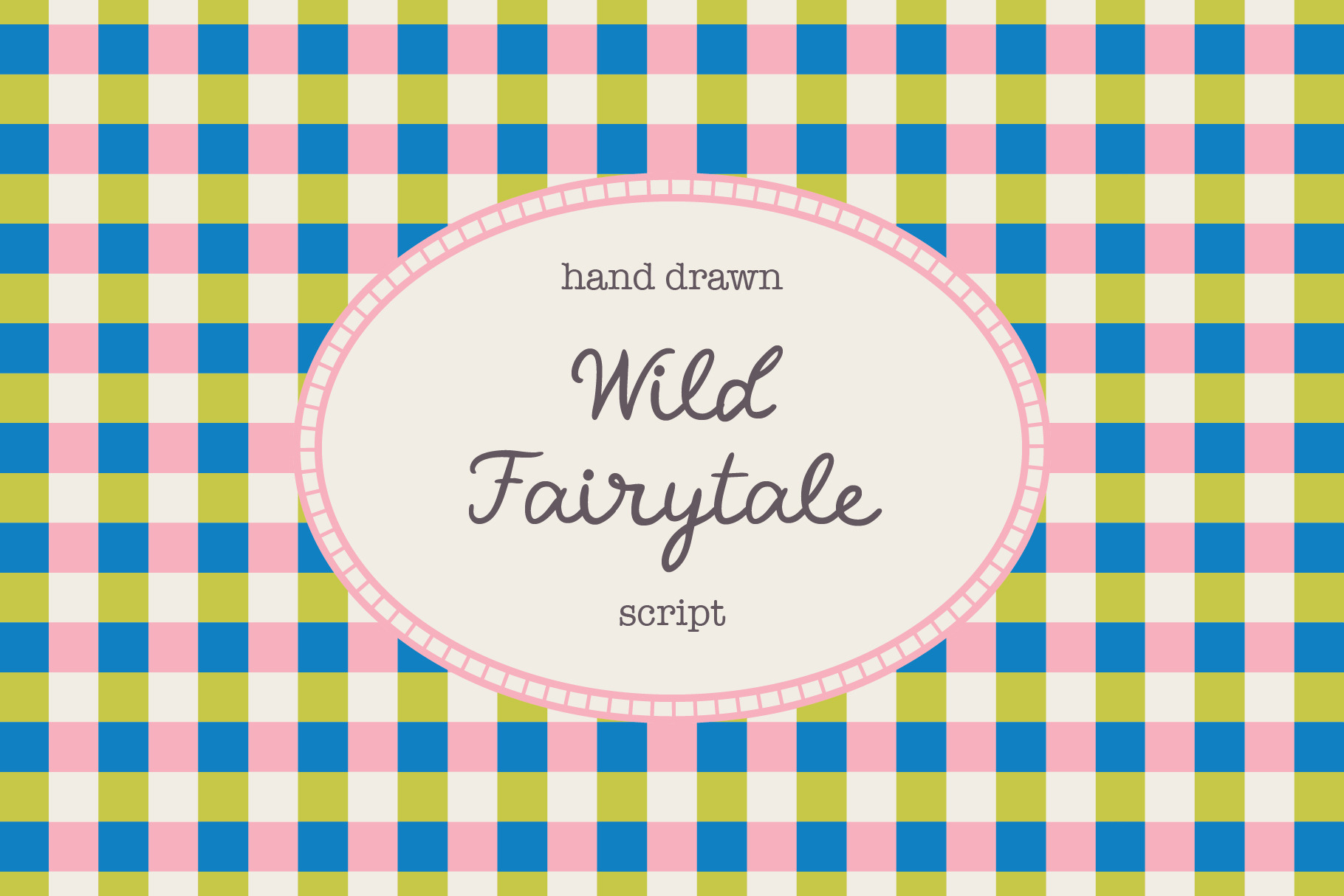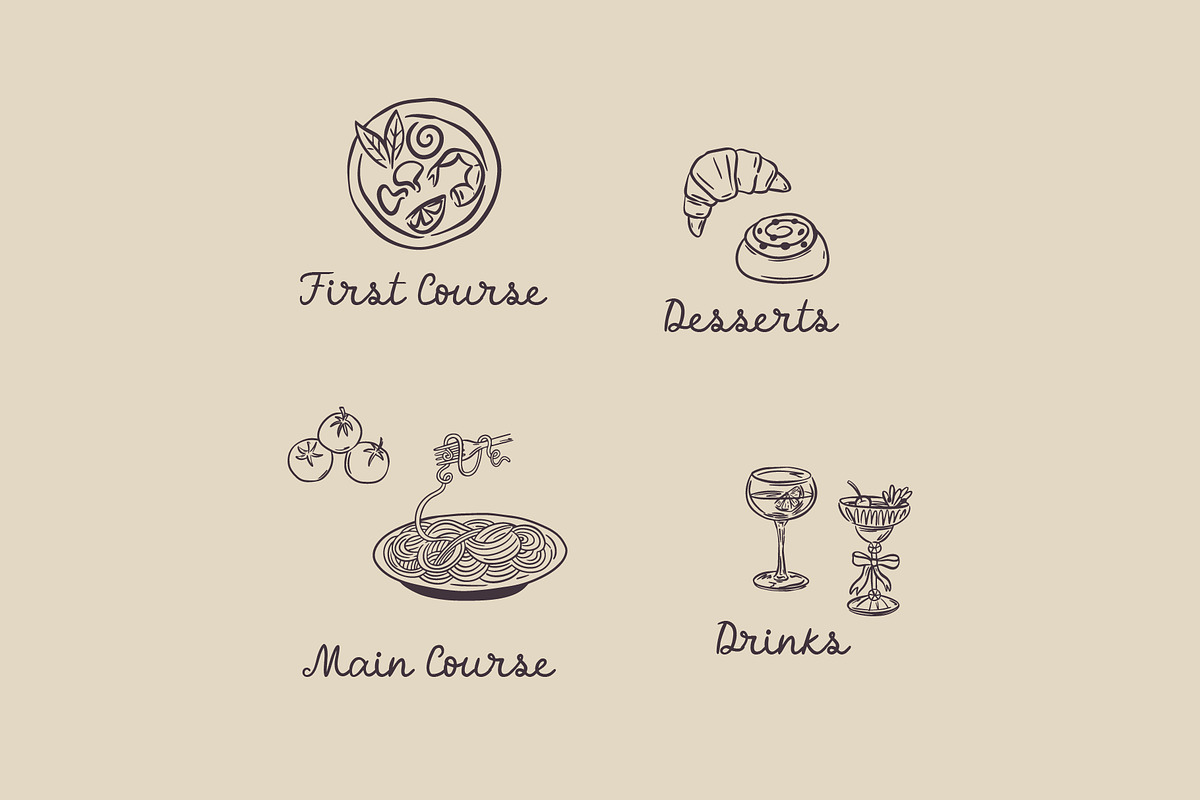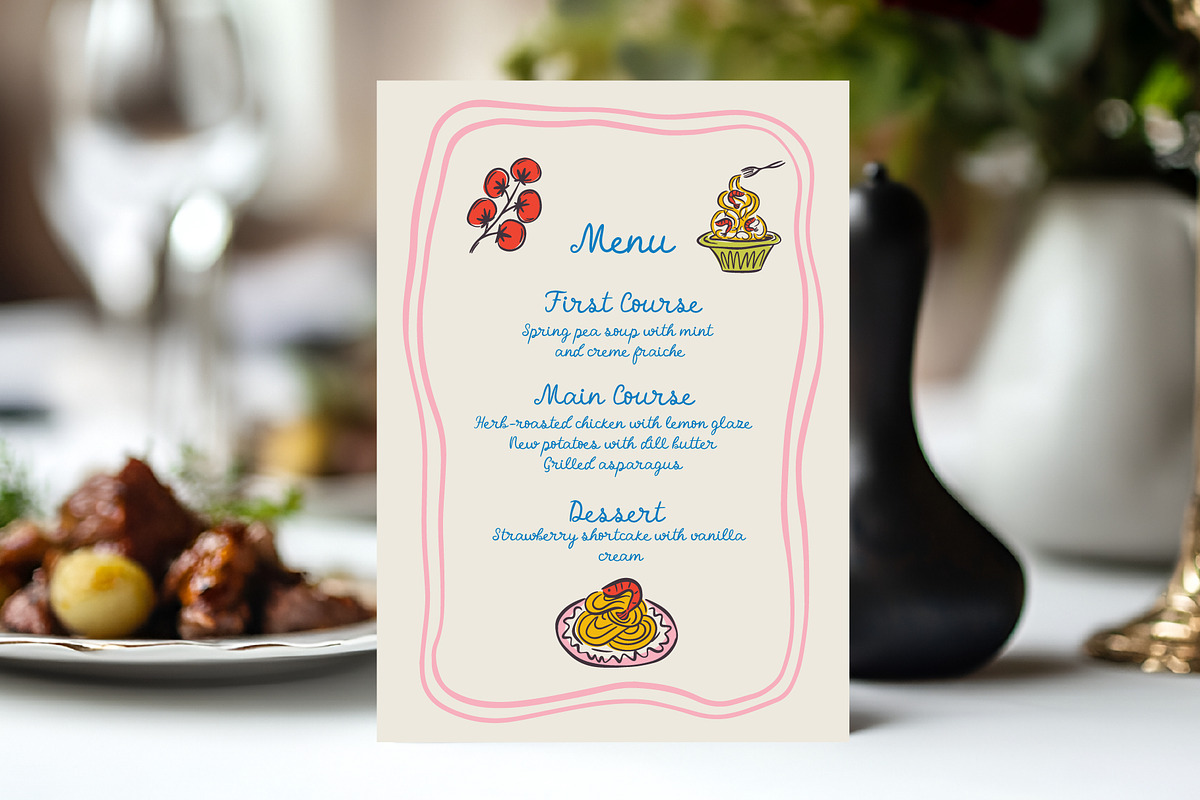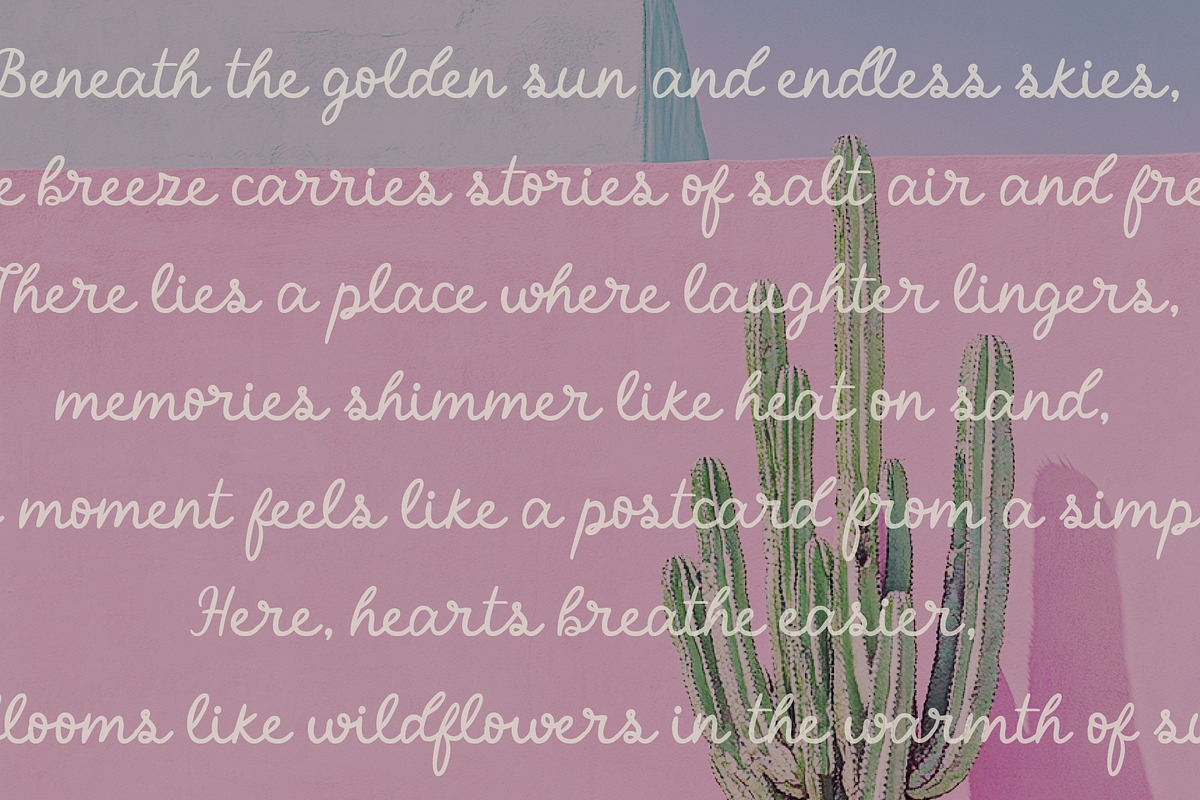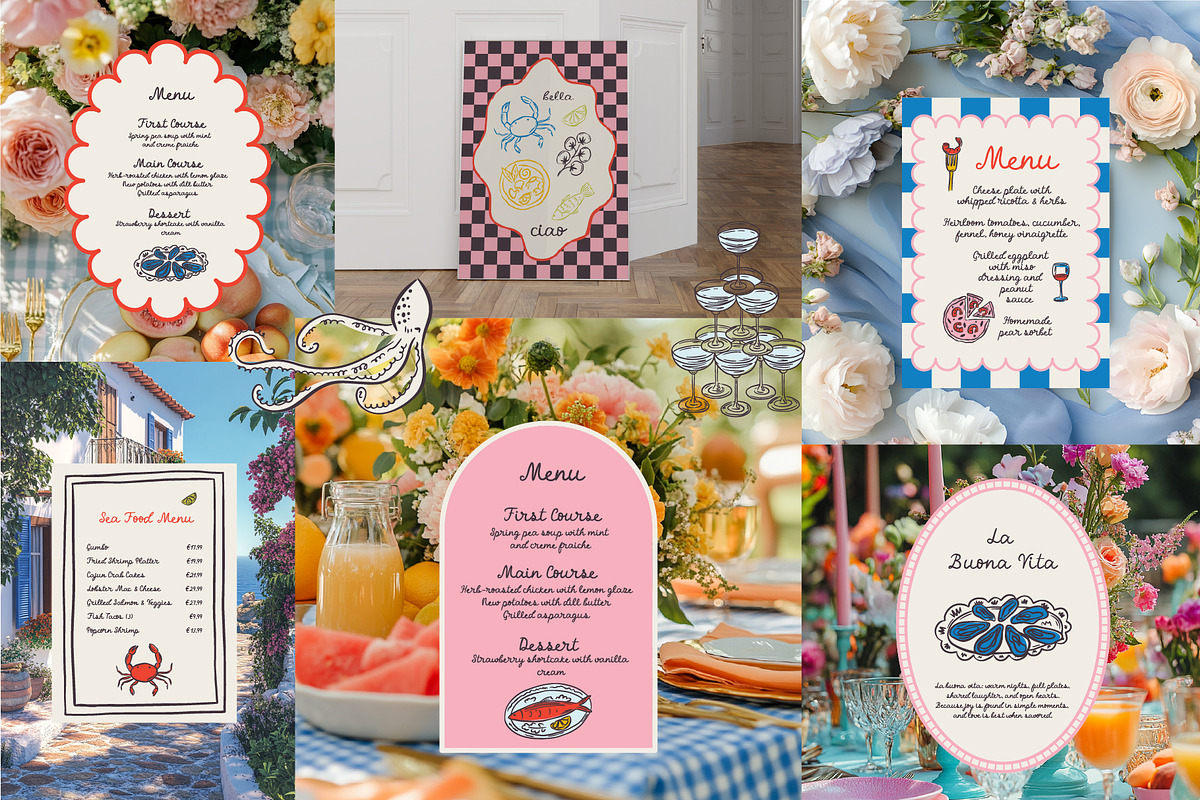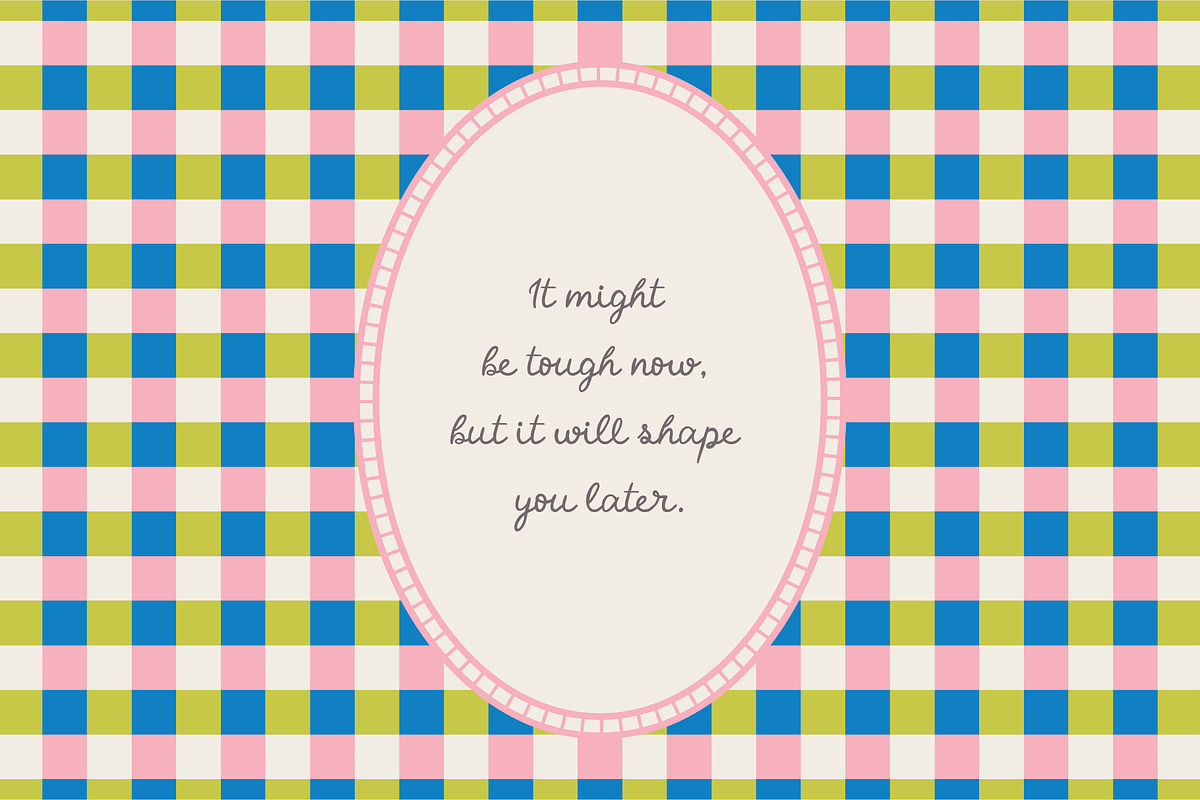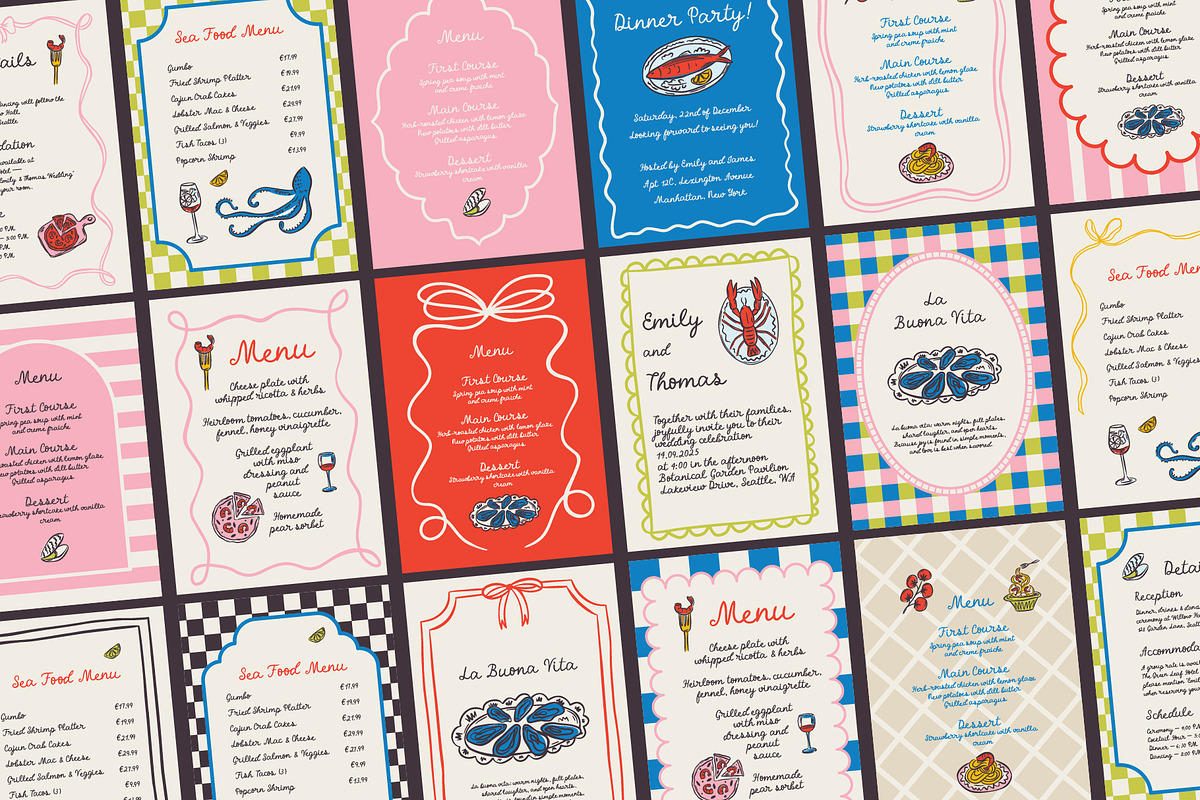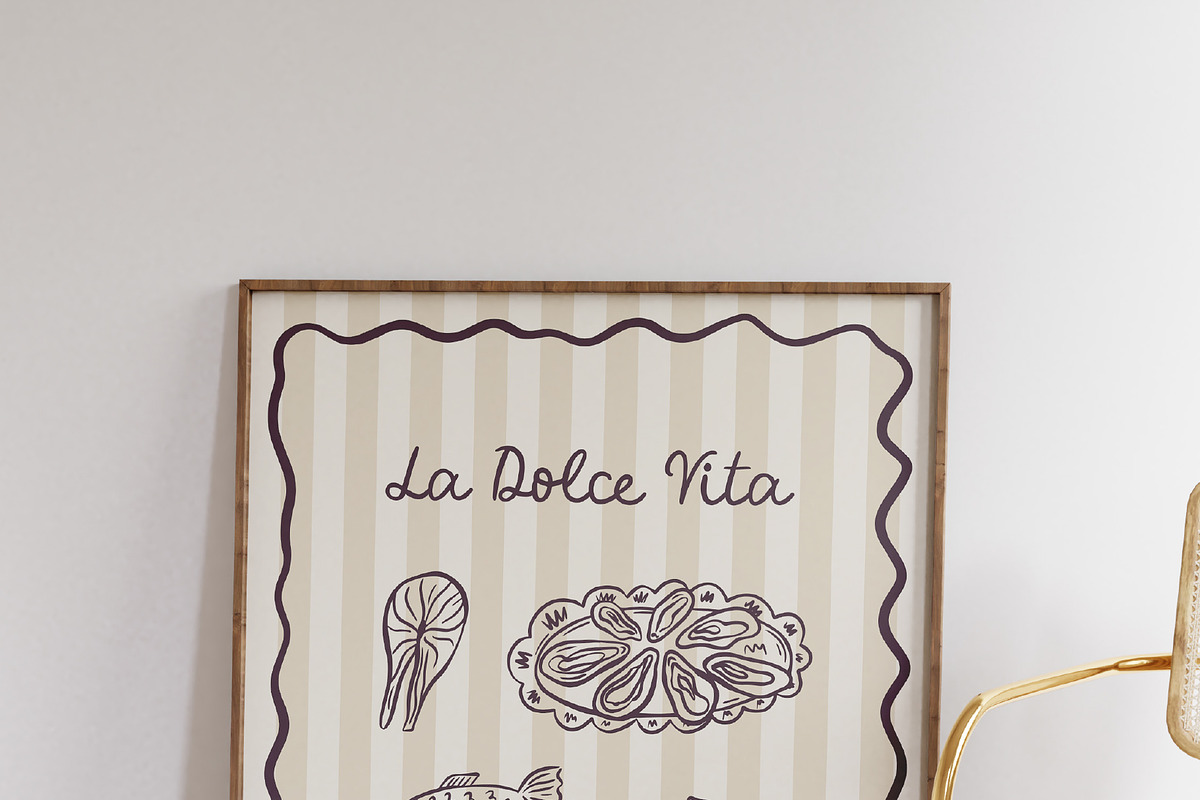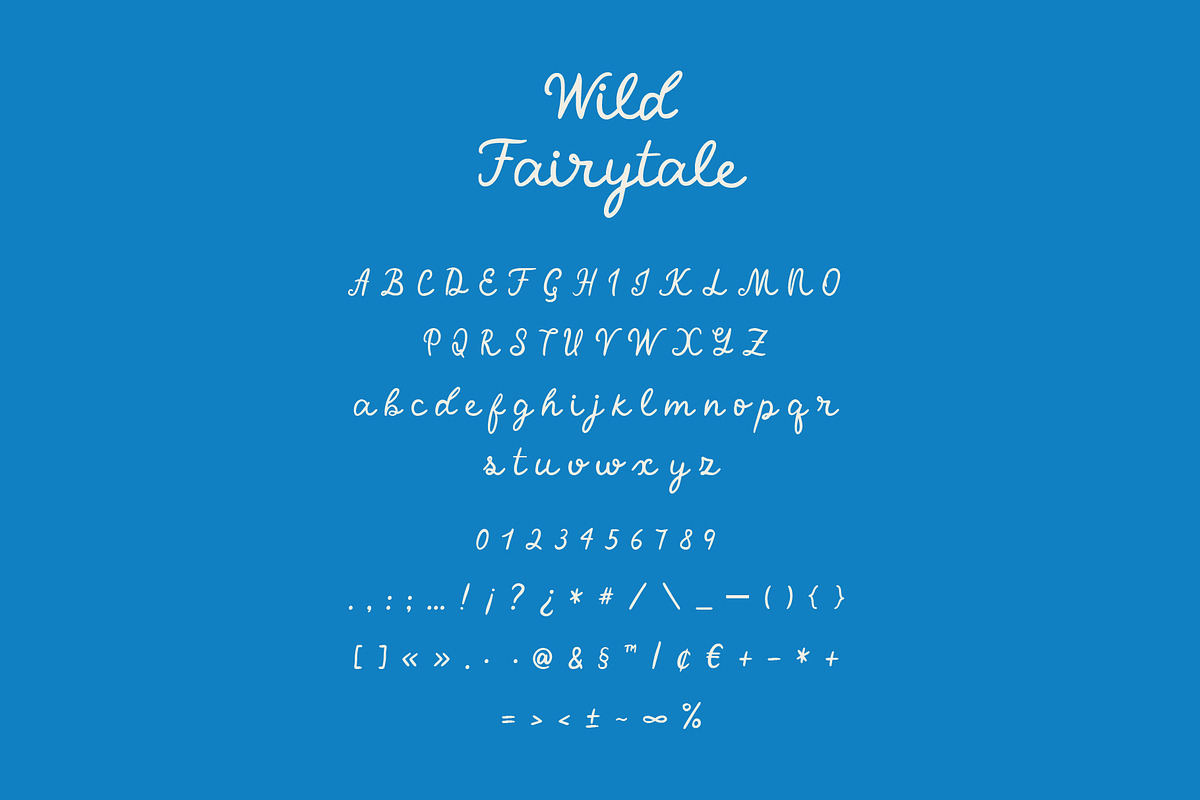
Wild Fairytale Font
Wild Fairytail is a whimsical handwritten font with a slightly irregular style — perfect for wedding stationery, branding, quotes, designs. Its hand-drawn charm and storybook elegance make it ideal for Canva, Procreate, and other design tools. Use it for invitations, logos, posters, or any project that needs a romantic and enchanted vibe. Bring your creative vision to life with this unique, fairy-inspired script.